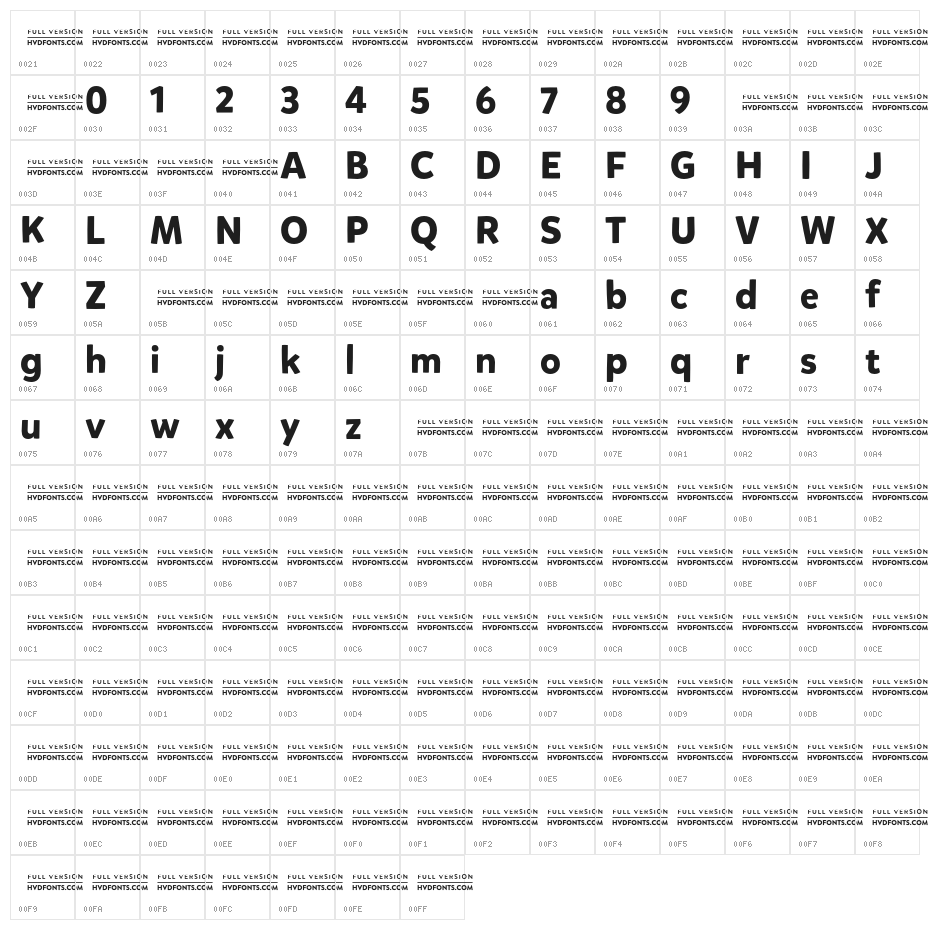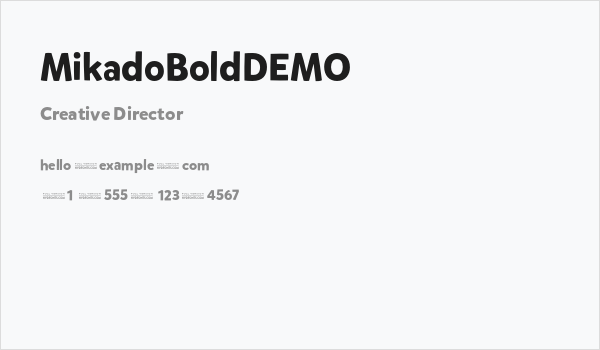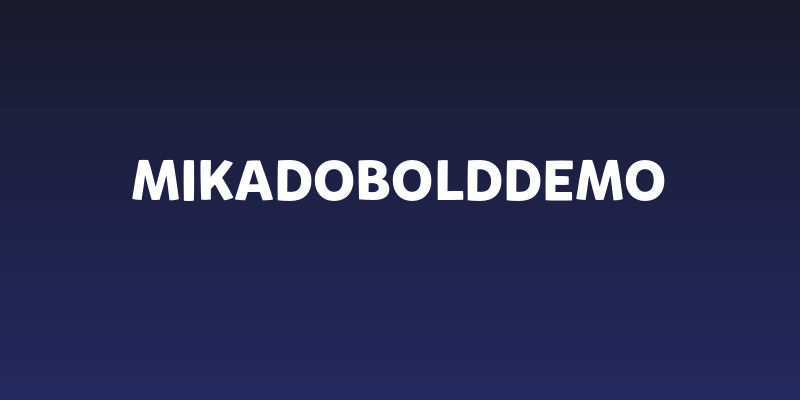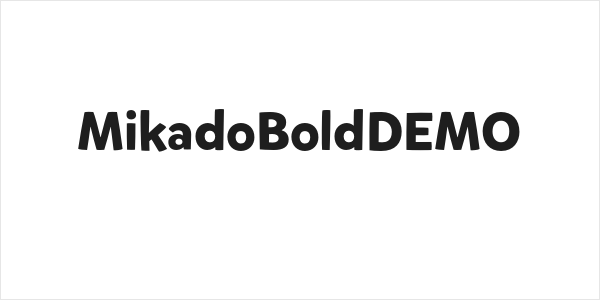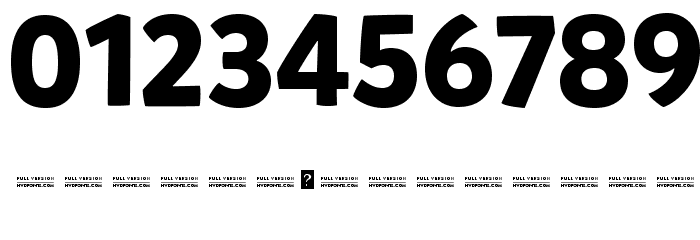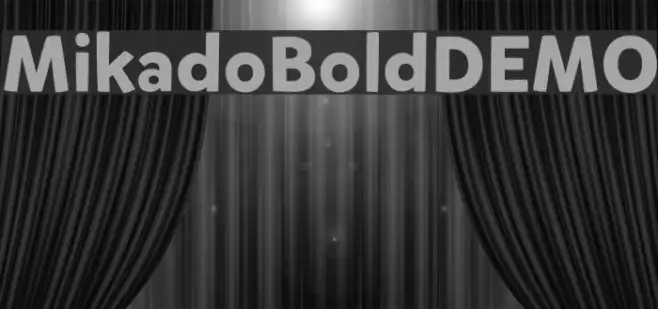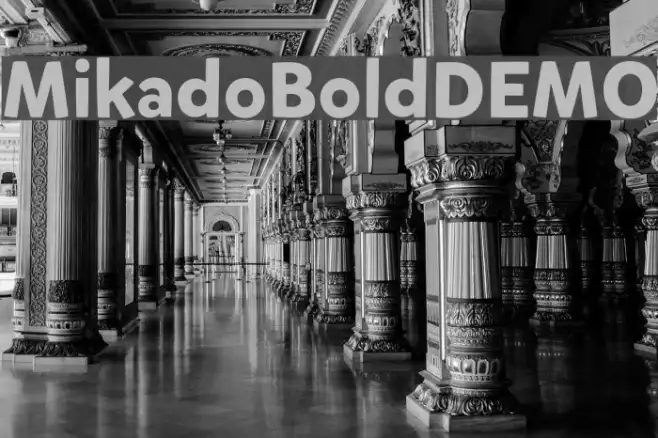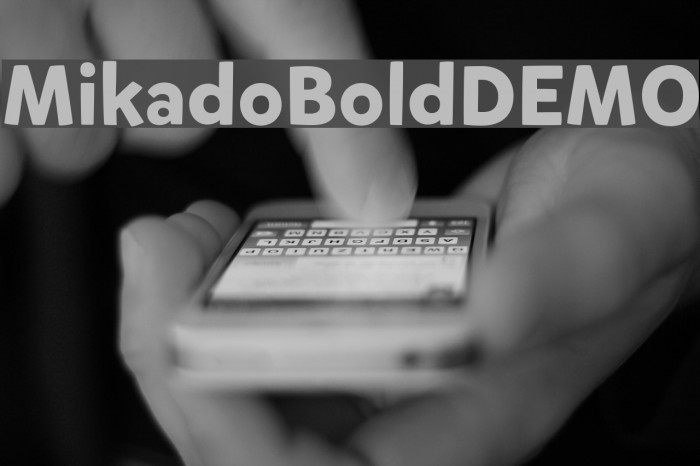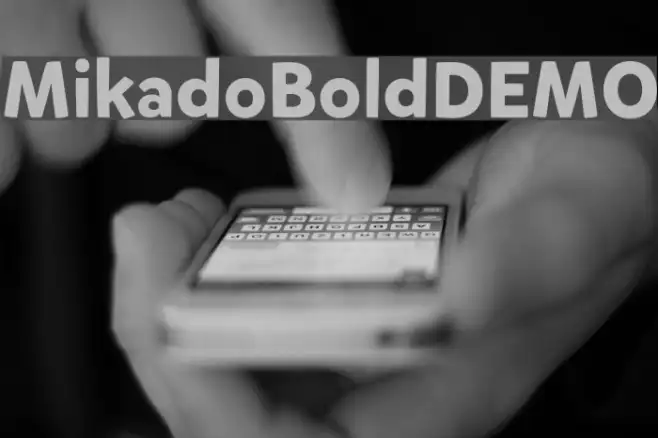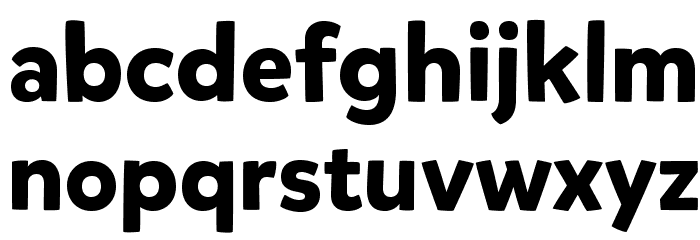
MikadoBoldDEMO Font
MikadoBoldDEMO Description
This font features a bold and playful design with rounded edges and a strong presence. The characters are evenly spaced, providing a clean and modern look. The uppercase letters are robust and commanding, while the lowercase letters maintain a friendly and approachable feel. The numerals are consistent with the overall style, ensuring readability and uniformity. This font is versatile, suitable for a variety of applications where a bold statement is needed.